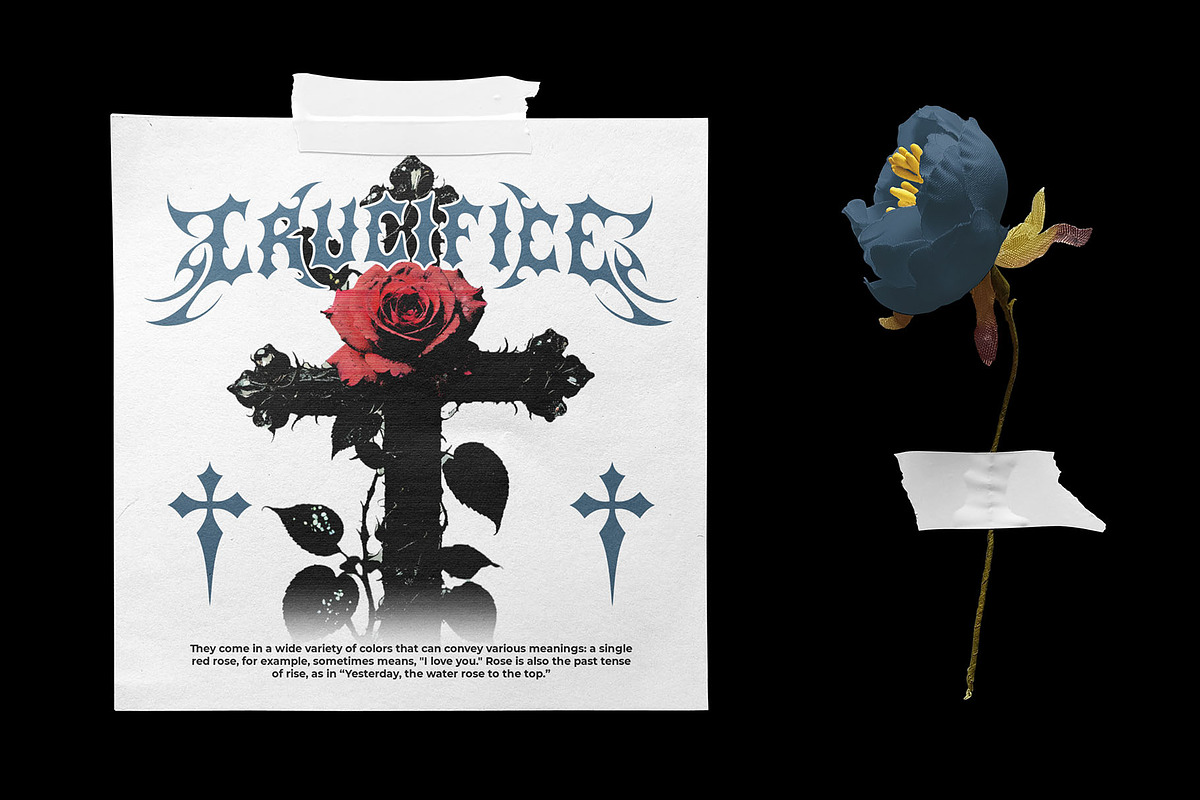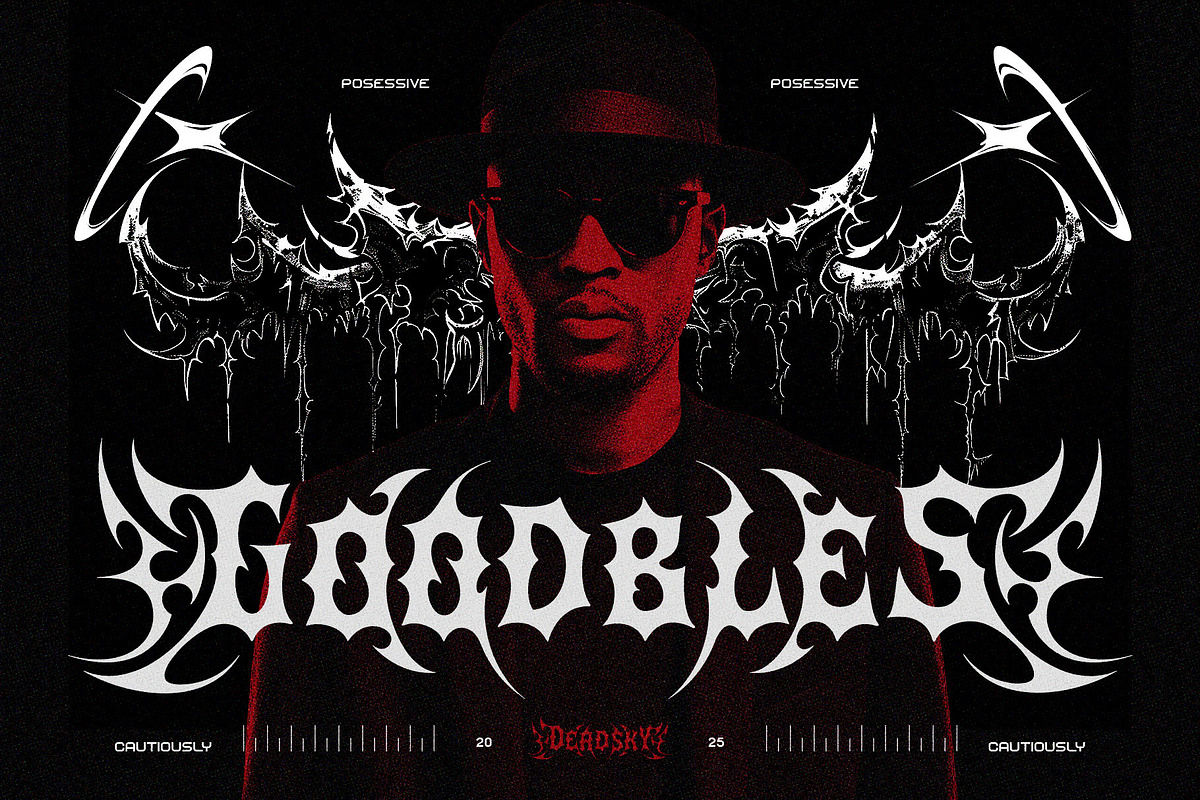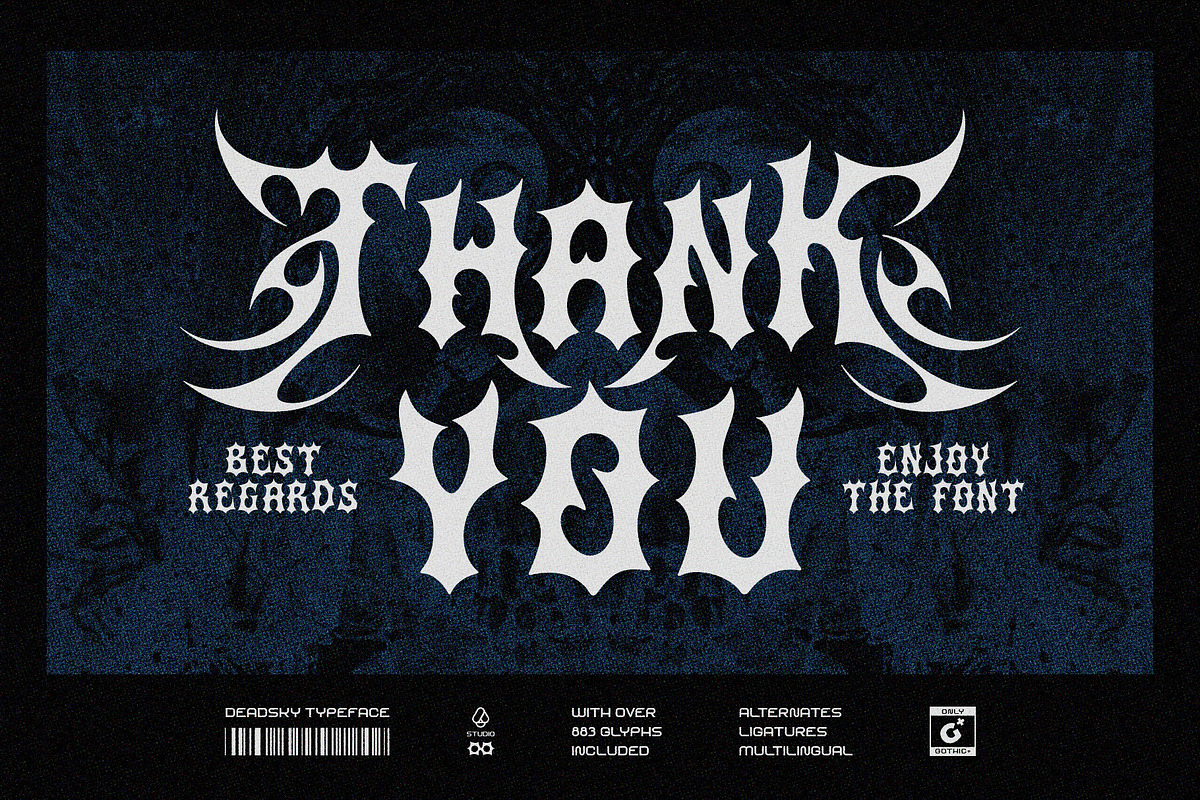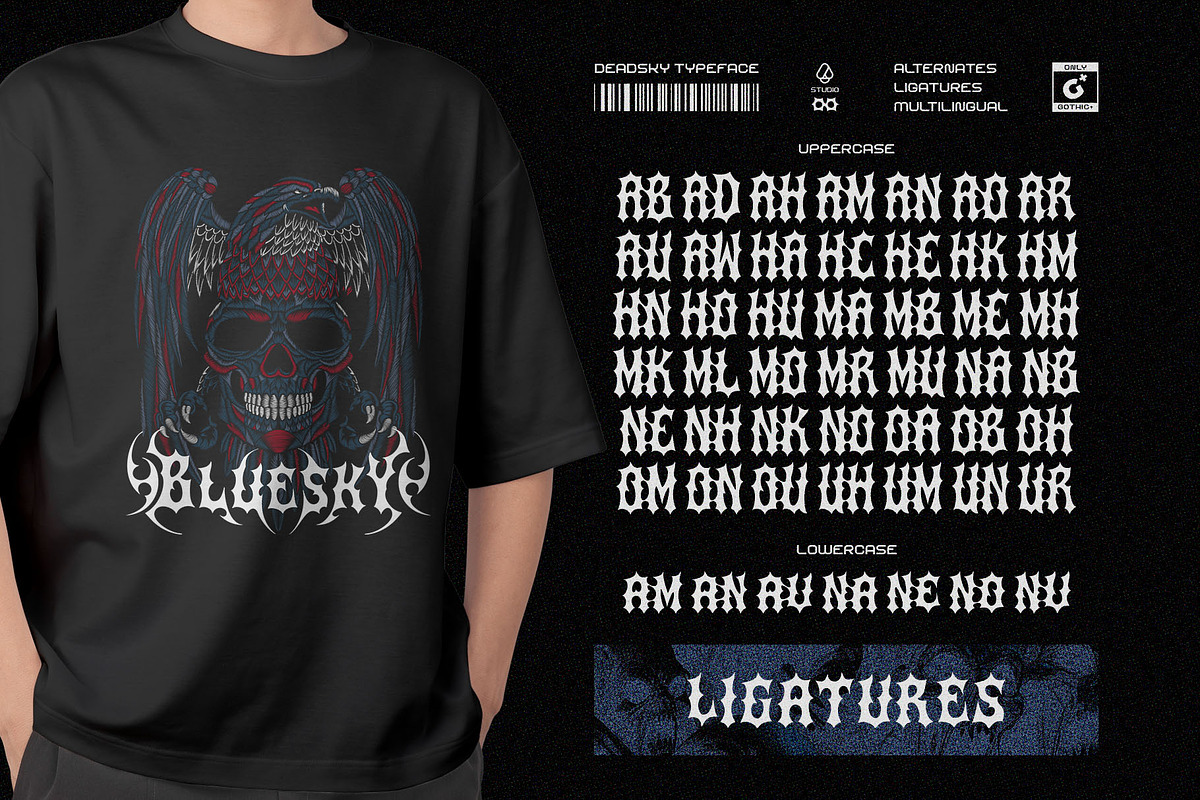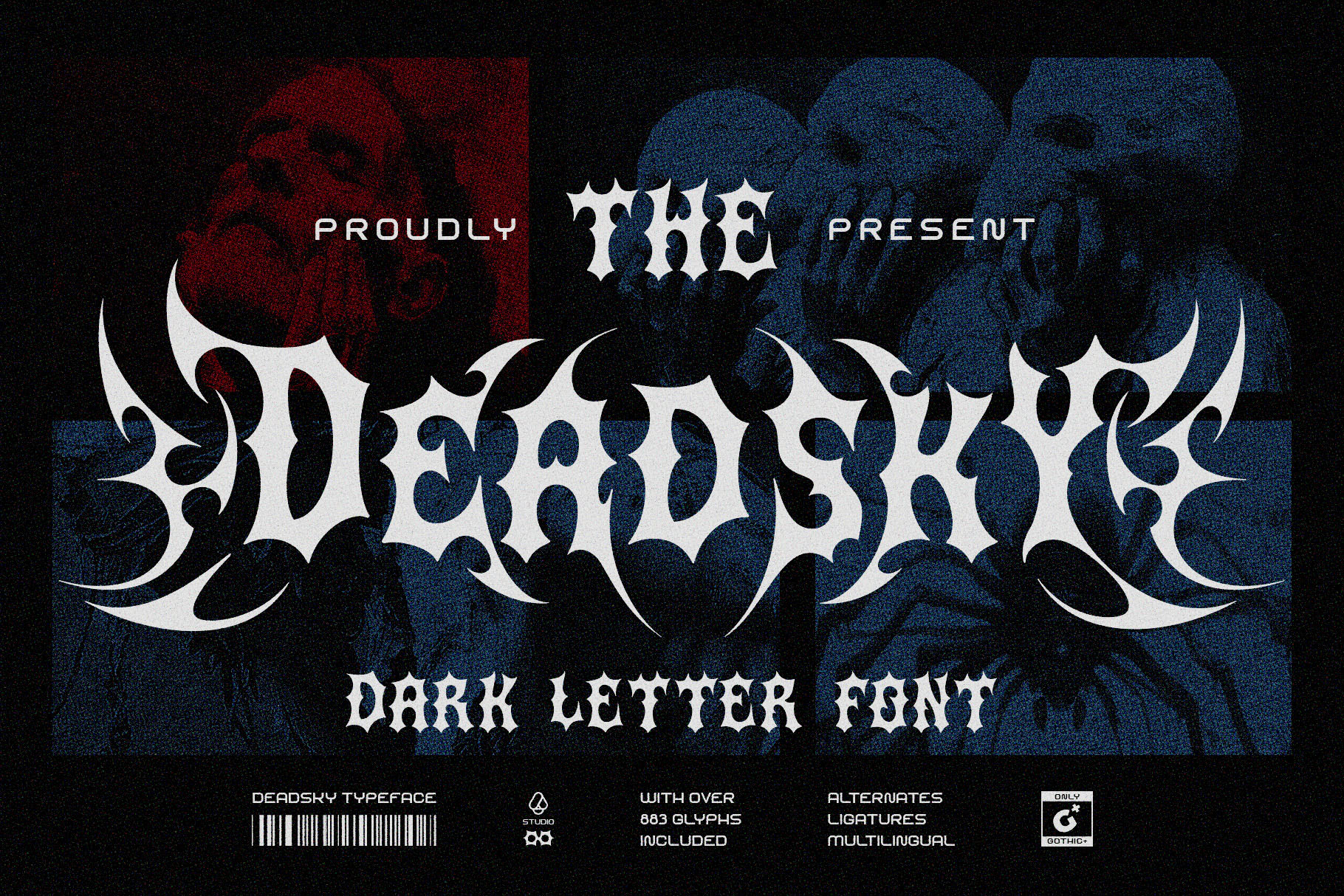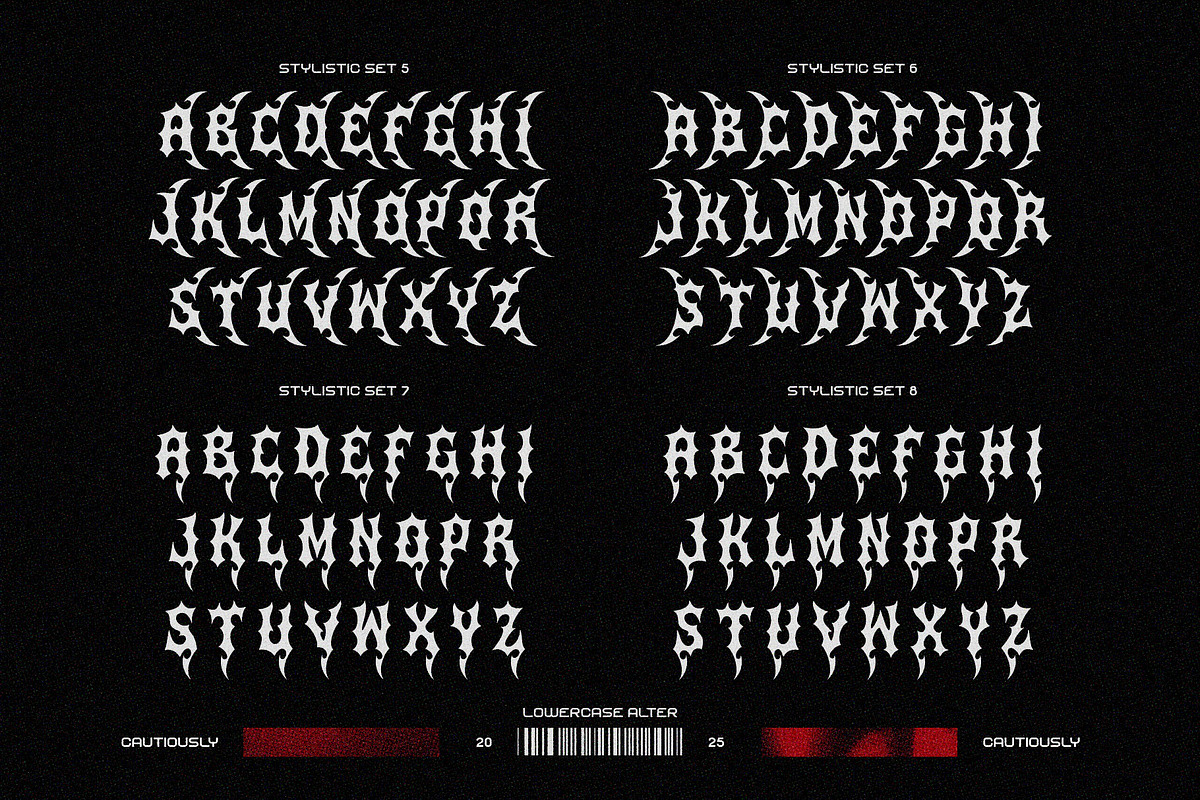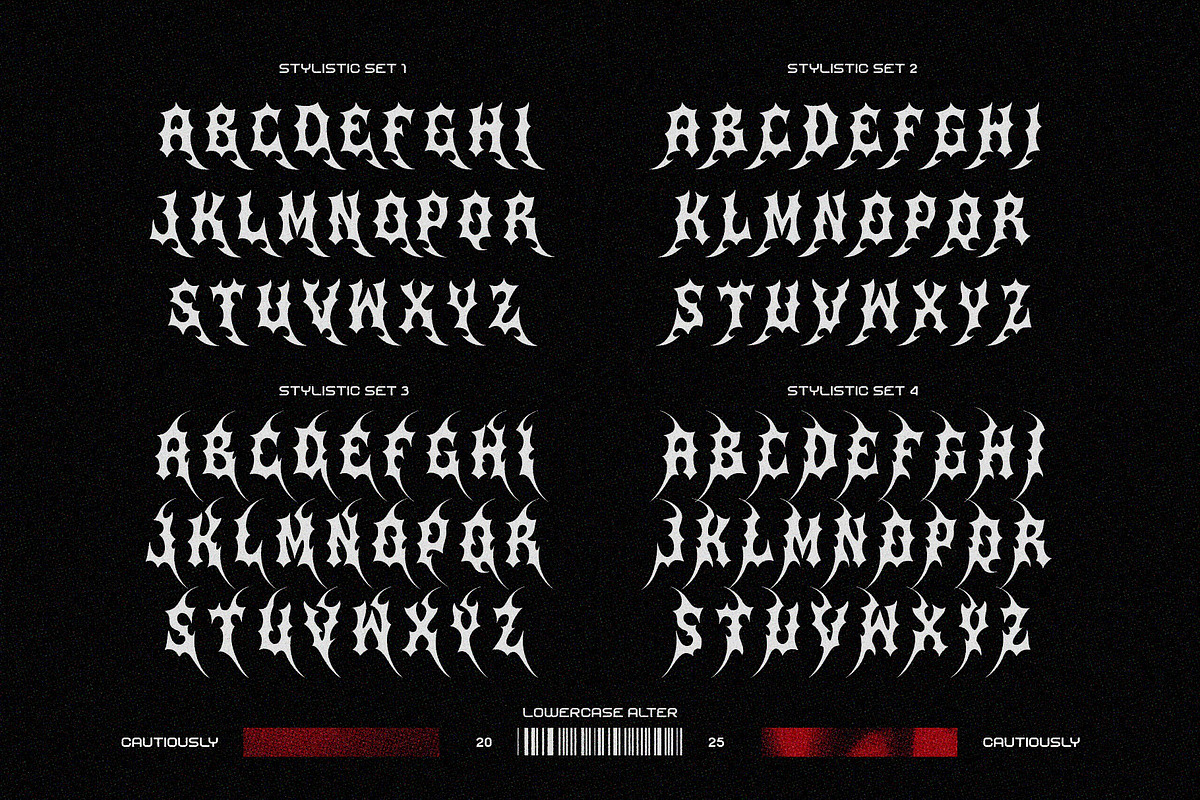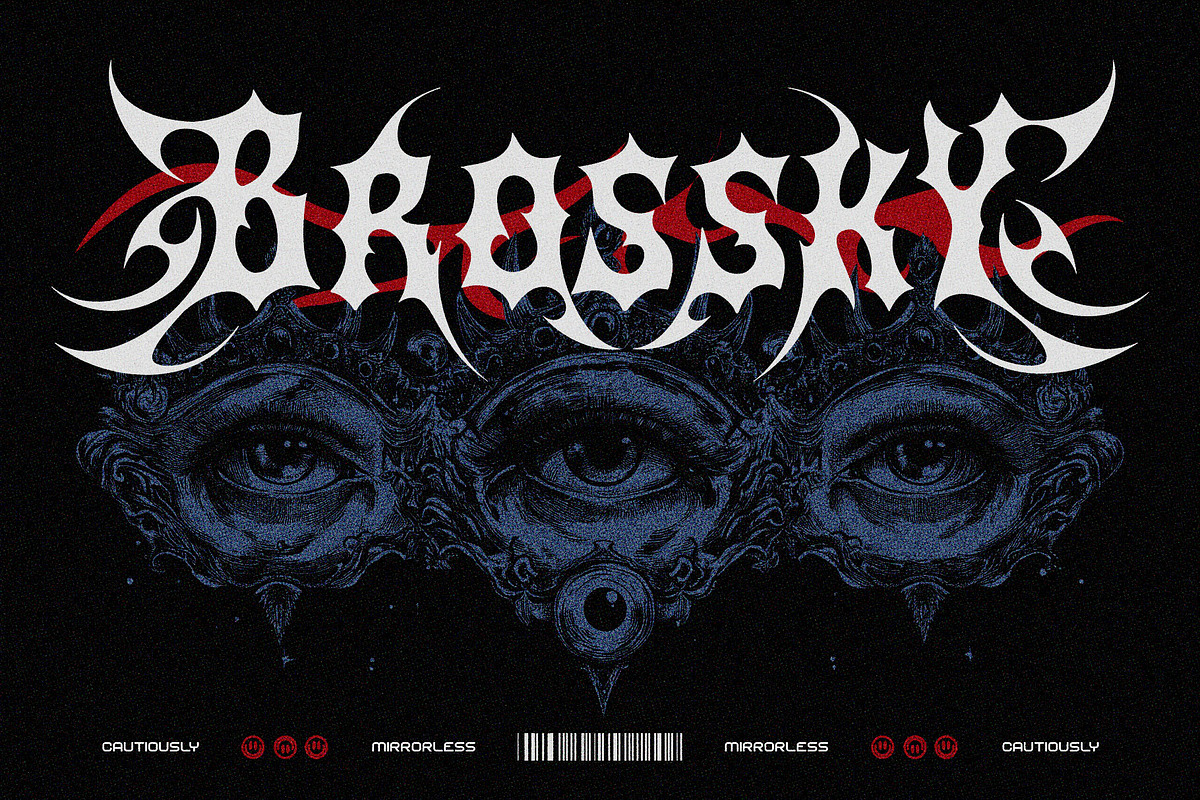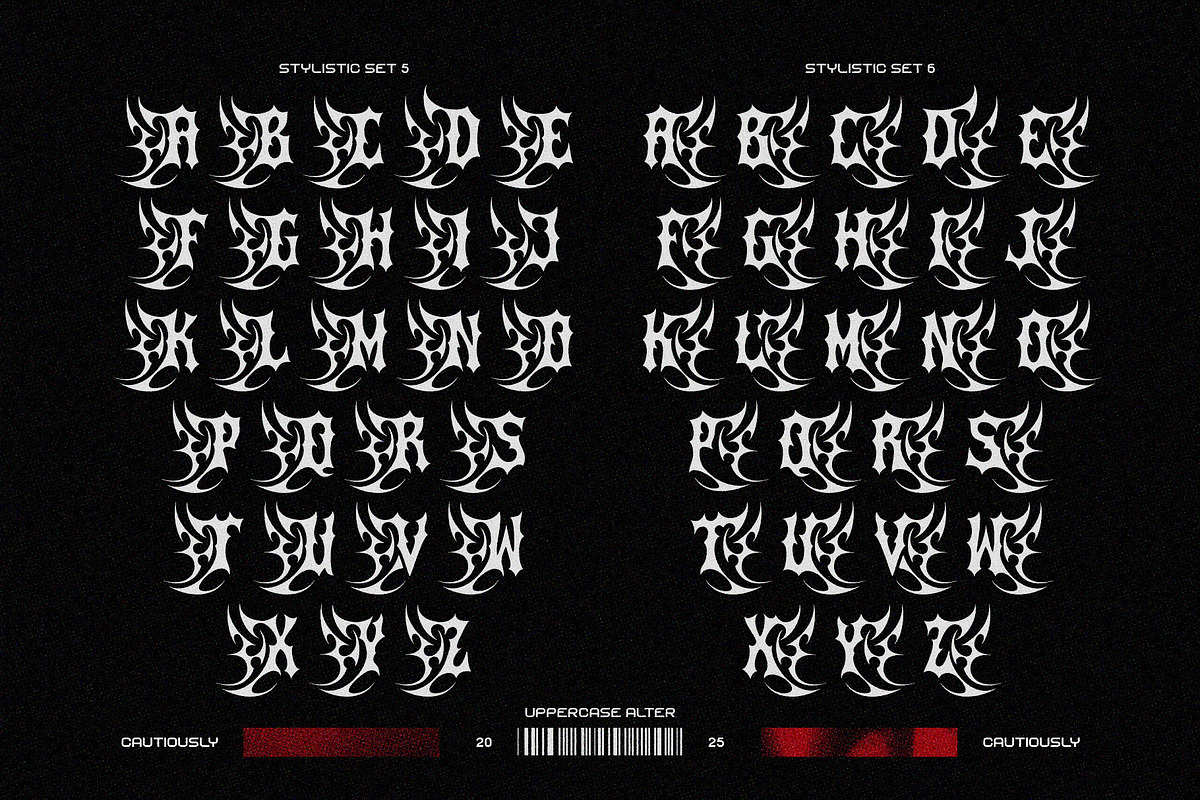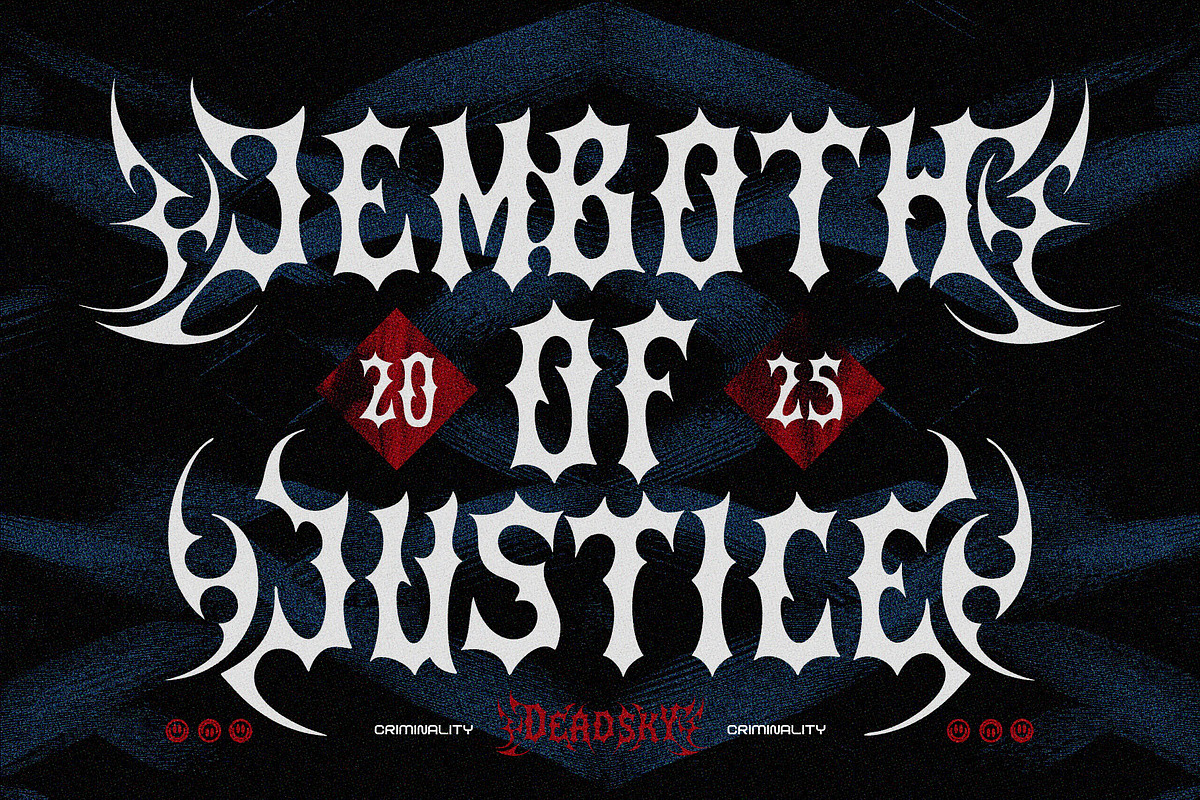
Dead Sky Darkletter Typeface
Dead Sky Darkletter Typeface — Where Bold Punk Meets Tribal Aesthetic
Step into the world of edgy typography with Dead Sky, a powerful darkletter typeface designed to stand out. Inspired by punk culture and tribal motifs, this font exudes a rebellious spirit with its sharp thorn-like elements and dynamic swashes. Whether you're designing for music, fashion, branding, or art, Dead Sky delivers a bold, aggressive style that commands attention.
⚡ Why Choose Dead Sky?
🏹 Unique Design Aesthetic
- The letterforms are infused with thorn-like curves and tribal-inspired swashes, creating a fierce and aggressive look.
- Perfect for heavy metal band logos, punk album covers, event posters, and streetwear branding.
🛠️ Font Features:
🔤 883 Characters Total
- A comprehensive set of letters, numbers, and symbols, giving you complete flexibility.
Crafted with attention to detail, each character reflects a dark, bold personality.
✨ Alternates & Ligatures
- Offers multiple character variations to enhance creativity.
Ligatures ensure seamless letter combinations for a more natural flow.
🎨 Swashes for Dramatic Impact
- Bold, sweeping swashes add an extra layer of intensity.
- Ideal for headlines, logos, and designs where you want to leave a lasting impression.
🌍 Multilingual Support
- Supports a wide range of languages, allowing for international use.
- Perfect for global brands, publications, and multi-language projects.
💡 Ideal for:
- Music Industry — Perfect for metal, punk, and rock album covers or band logos.
- Fashion Branding — Stand out on streetwear, merchandise, and apparel.
- Event Posters — Great for festivals, concerts, and underground events.
- Digital Art & Social Media — Create eye-catching posts, graphics, and digital content.
🎤 Make a Statement with Dead Sky
Dead Sky Darkletter Typeface isn't just a font — it's an attitude. Whether you're looking to add edge to your design or evoke a bold, rebellious mood, this typeface delivers unmatched intensity with every stroke.
✅ Push boundaries. Break norms. Create fearlessly.
With Dead Sky, your message will never go unnoticed.